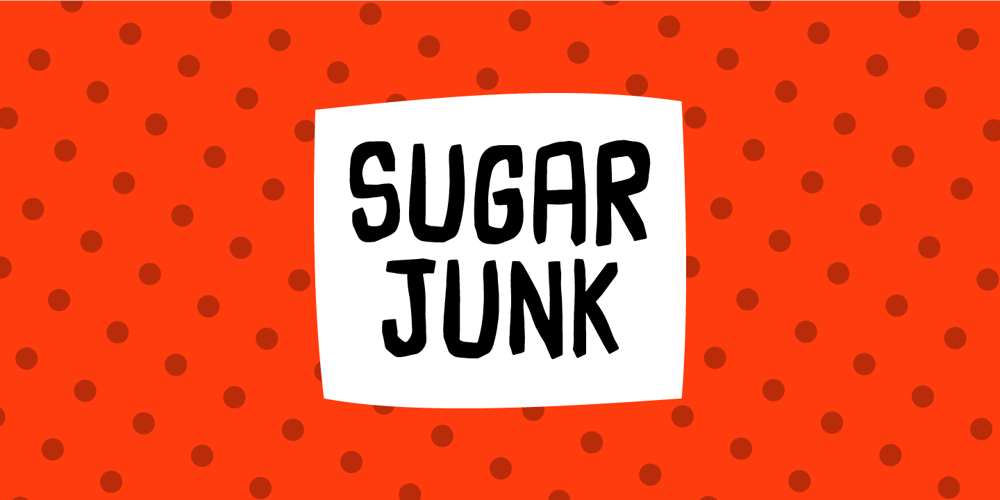
Sugar Junk Font Family was designed by Jakob Fischer and published by Bogstav. Sugar Junk contains 2 styles and family package options. Sugar Junk is my all-caps brush font with soft edges and rough lines. Use it when you need something stated with clear legible and organic looking letters!I’ve added 5 different versions of each letter, and they automatically cycles as you type!